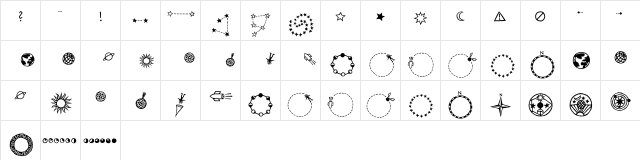
Elementary Space
| Style | Space |
Design Context for Elementary Typeface
Elementary is a composed and adaptable typeface that performs quietly and consistently across a wide range of design contexts.